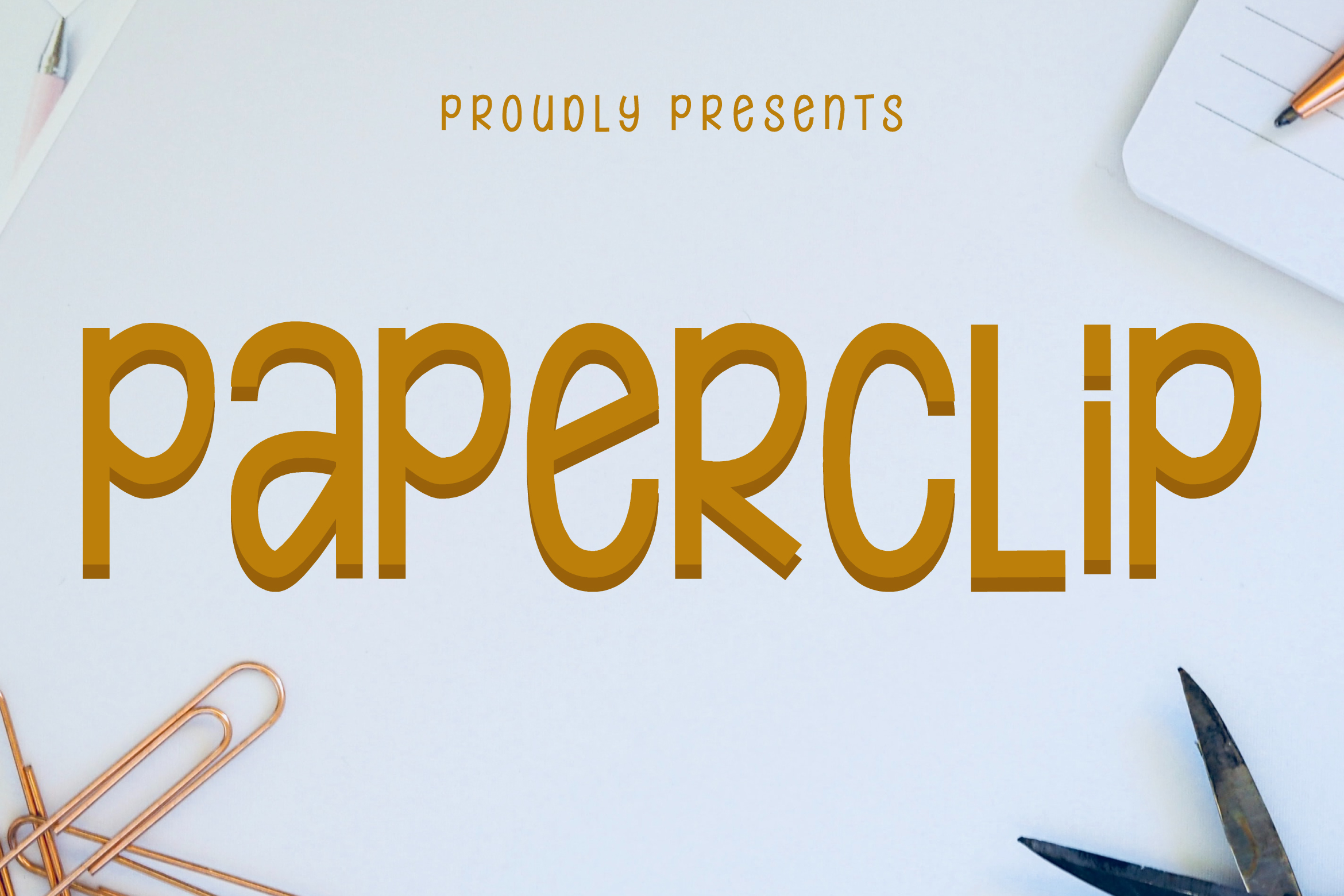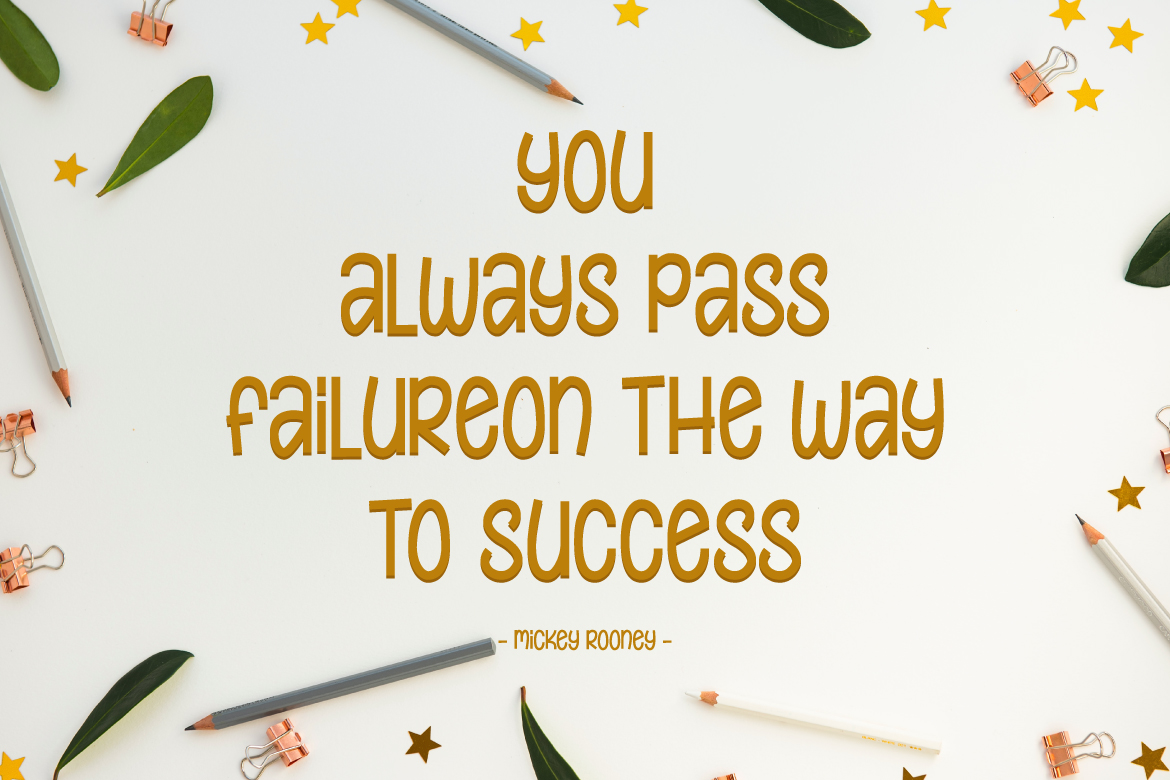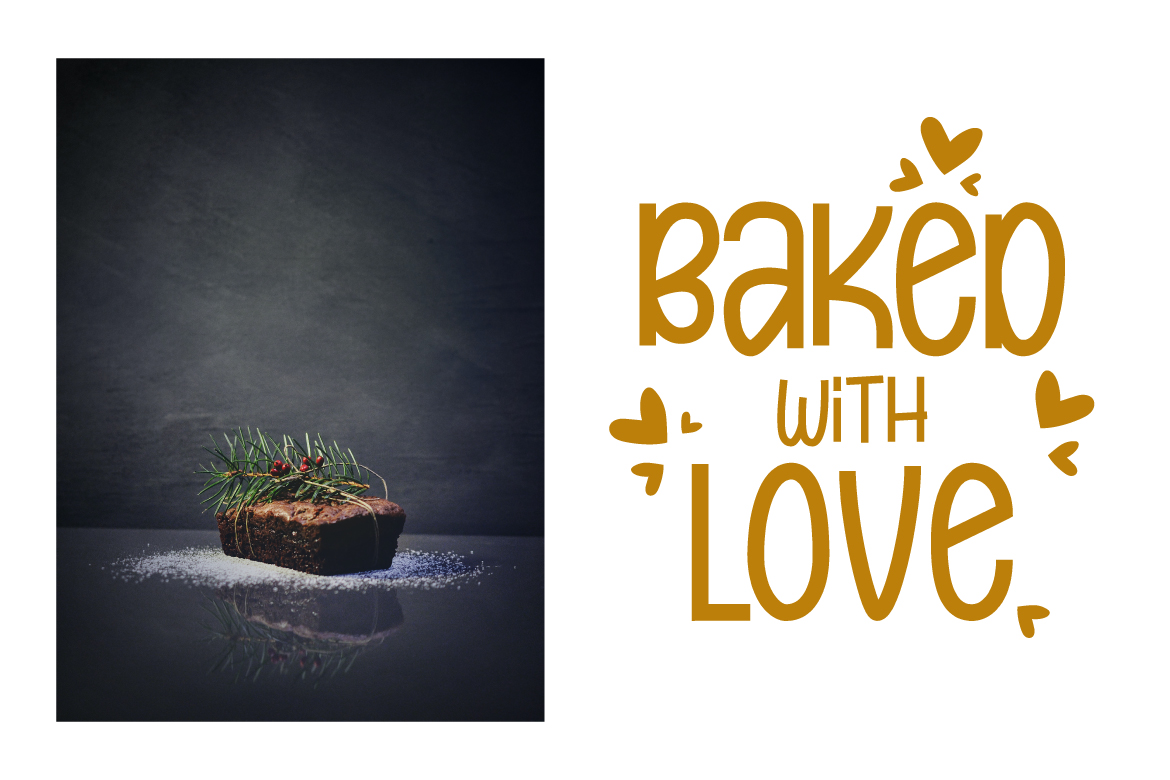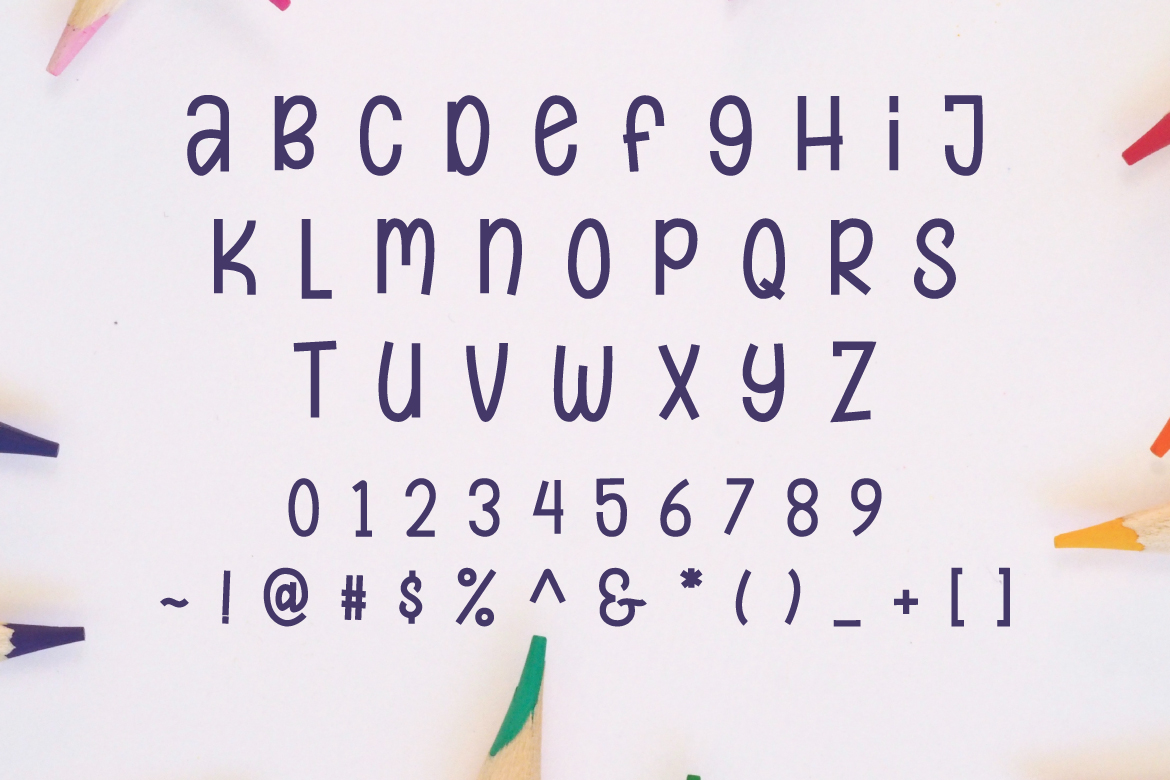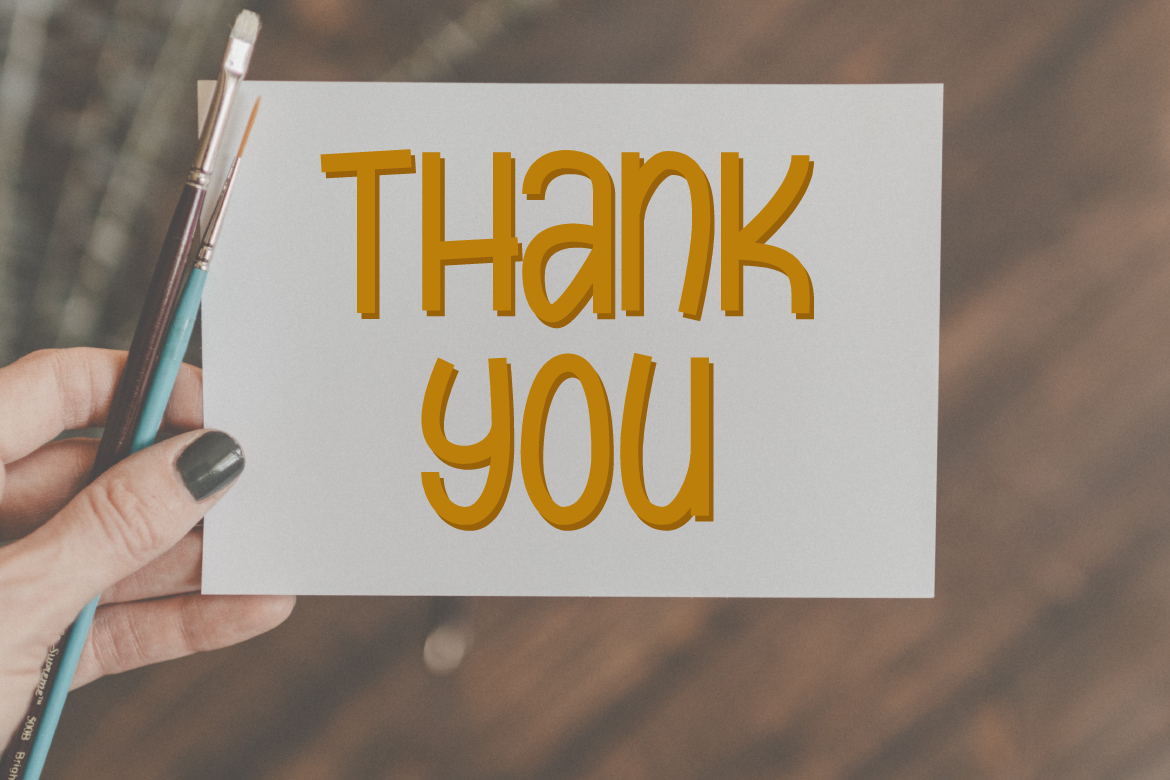
Paperclip is a quirky and modern display font inspired by the simplicity of everyday objects and the charm of childlike creativity. With rounded forms, unique character shapes, and a playful twist on standard letter construction, Paperclip brings a light-hearted personality to your design work. It’s perfect for educational themes, fun branding, children’s products, greeting cards, and DIY projects.
The font comes with a full set of uppercase and lowercase characters, numbers, punctuation, and a variety of symbols to cover a wide range of creative needs. Whether you’re designing for school events, handmade packaging, or inspirational quotes, Paperclip adds an inviting and imaginative feel that stands out with both warmth and originality.
Paperclip